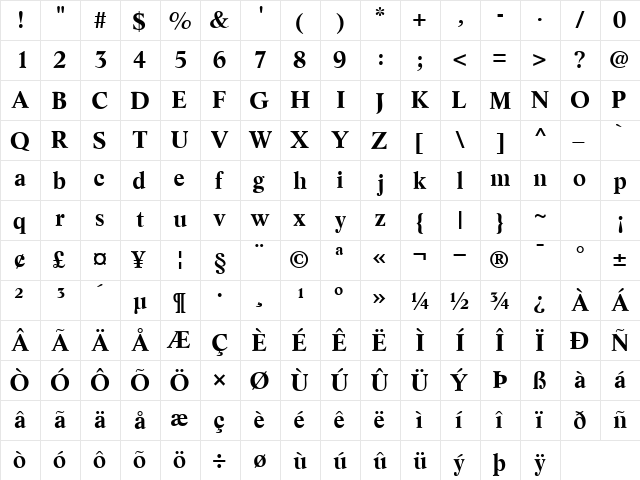
ResourceSSK Bold
Design Context for ResourceSSK Typeface
ResourceSSK is a composed and adaptable typeface that performs quietly and consistently across a wide range of design contexts. Its bold stroke weight gives it real presence on the page.